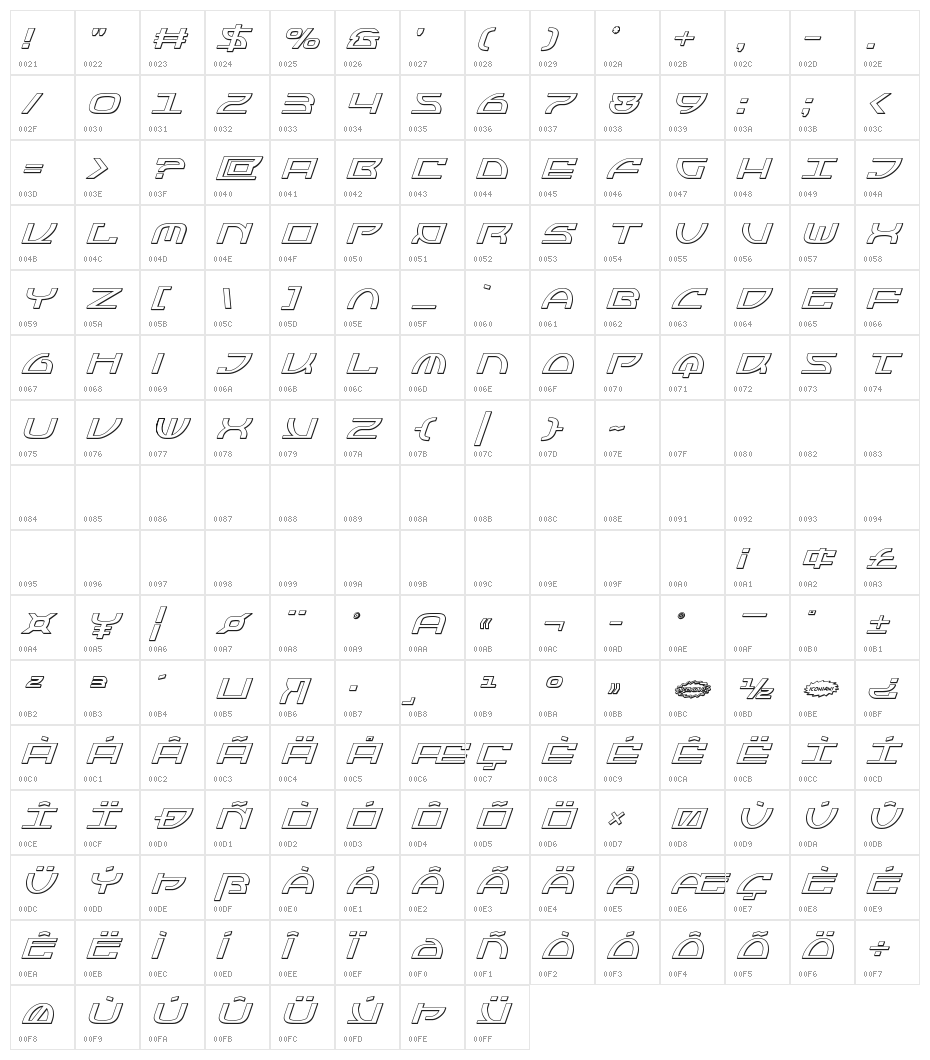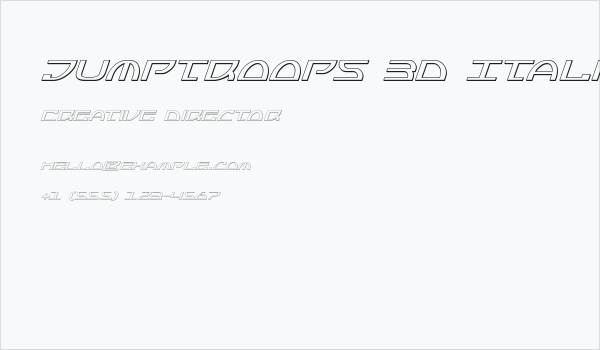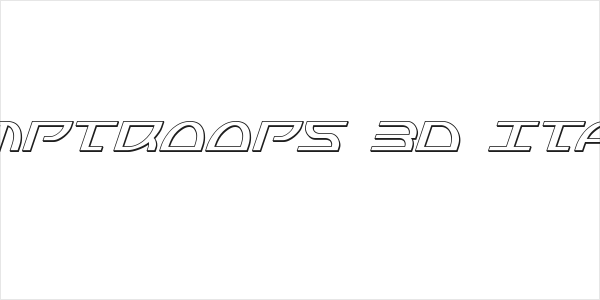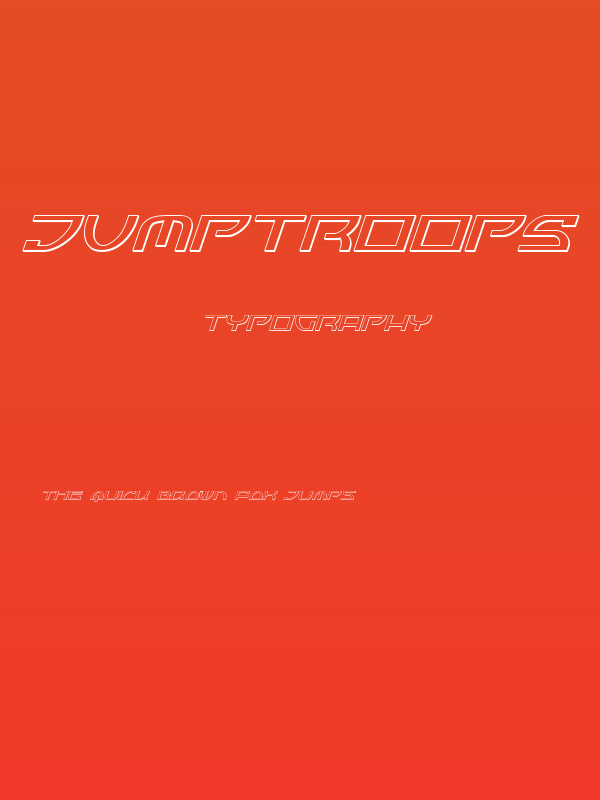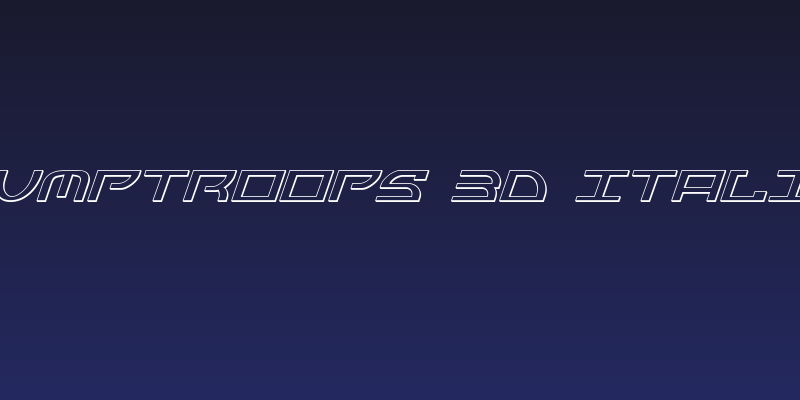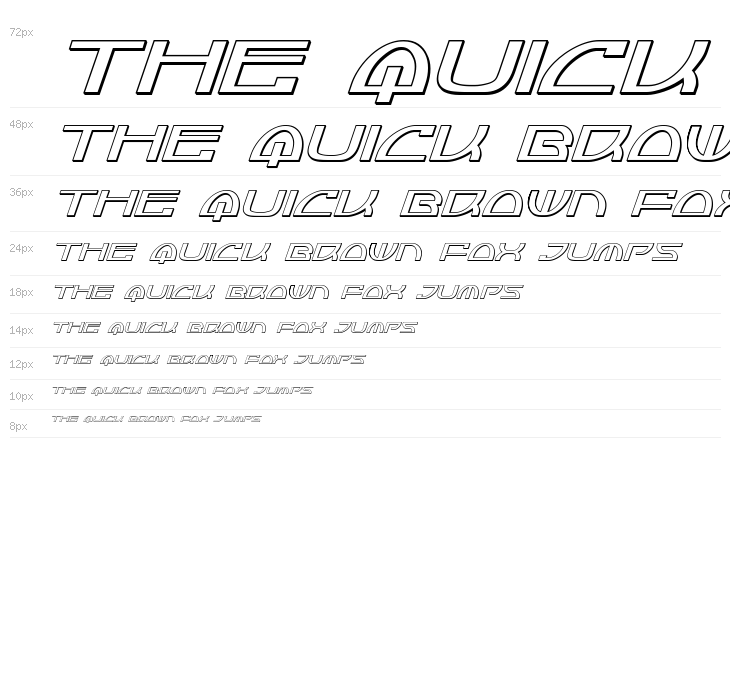
Jumptroops 3D Italic Font
Jumptroops 3D Italic Description
This font features a bold, futuristic design with a 3D effect that gives it a dynamic and modern appearance. The characters are outlined, creating a sense of depth and movement. The italicized style adds a forward-leaning, energetic feel, making it suitable for attention-grabbing headlines or titles. The uppercase and lowercase letters maintain a consistent geometric structure, while the numbers and special characters complement the overall aesthetic. The font's unique style is ideal for projects that require a contemporary and innovative look.
| Proposed Projects | Ideal for sci-fi themed posters, video game titles, technology branding, and modern advertising campaigns. |